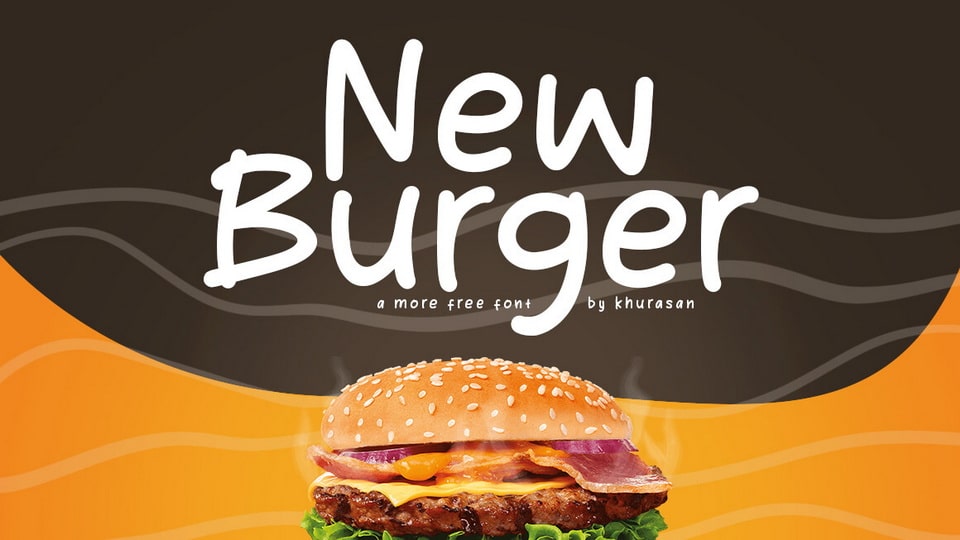
Download New Burger font, a handwritten comic typeface that injects your designs with a dose of lively charm. With New Burger font, your designs become a canvas for creative storytelling and comical fun